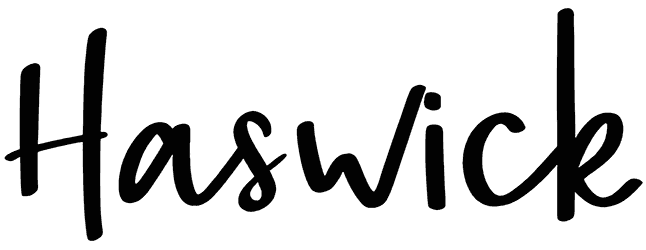
Haswick Font
Do you want to give a playful and casual visual to your text? You are in the right place. This handwritten font, with its natural and cute form, is capable of doing it. The Haswick font has almost full support of characters, which means that you can count on it for many layouts, like a school poster, a birthday Instagram post, and so on.